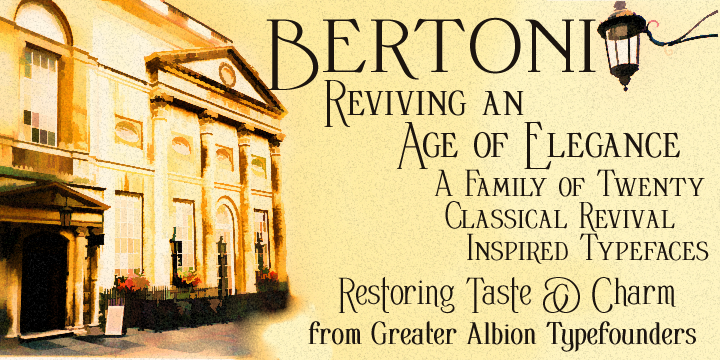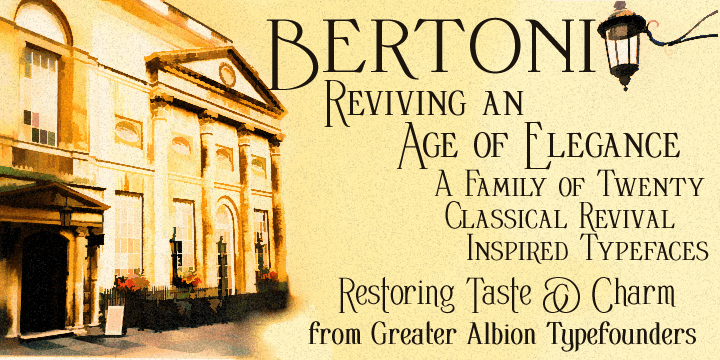
Bertoni is a historical and art nouveau font family. This typeface has twenty styles and was published by Greater Albion Typefounders.
Bertoni is a high contrast Didone family of twenty faces, which combines extreme legibility with distinctive character. It is able to hold its own in modern usage while having features rooted in a deep period charm. The family includes two widths as well as two weights. Bertoni regular, bold and wide are small capitals faces ideal for posters, book covers, packaging and signage. The text faces are body faces which form the ideal accompaniment. For more distinctive features, the Title, Capitals (all capitals, but in two forms) and Flamboyant faces are ideal. Bertoni offers a blend of the modern with classical revivalist charm which makes it up to the minute and never out of place. The family is extensive enough to form the foundation of a commercial house style, but can also lend an element of character in single usage.